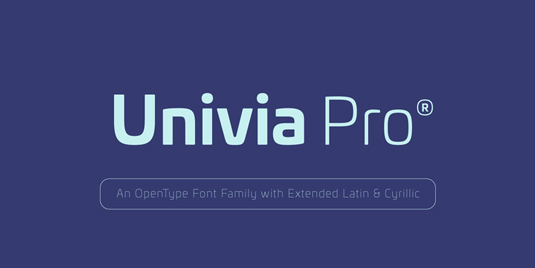
Font of the day: Univia Pro
Univia Pro by Olivier Gourvat
A contemporary typeface, Univia Pro was created by designer Olivier Gourvat in December 2015. With a distinctive, modern look, Univia Pro features smooth curves and round corners, making it ideal for both display and text use.